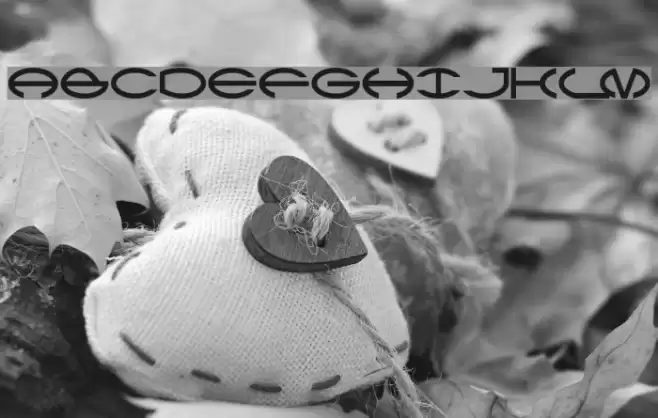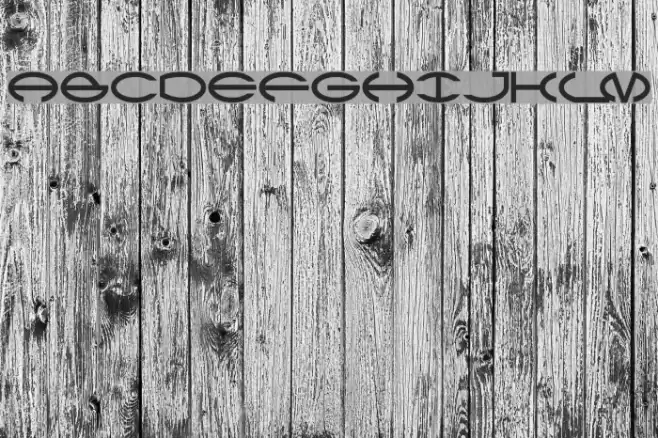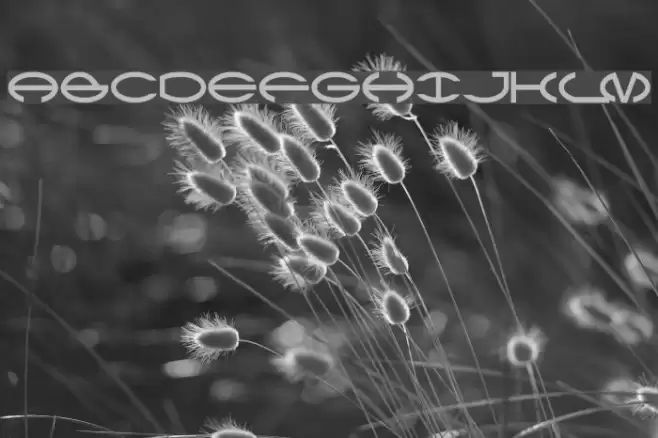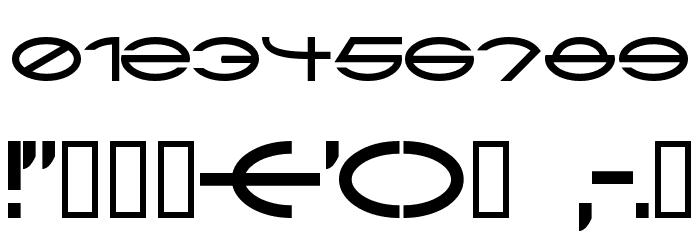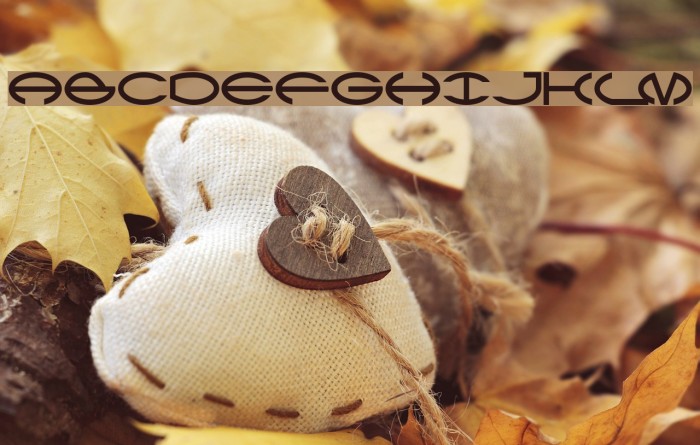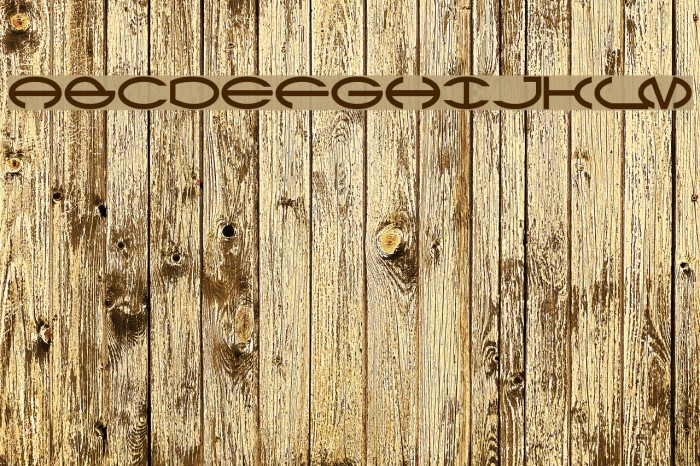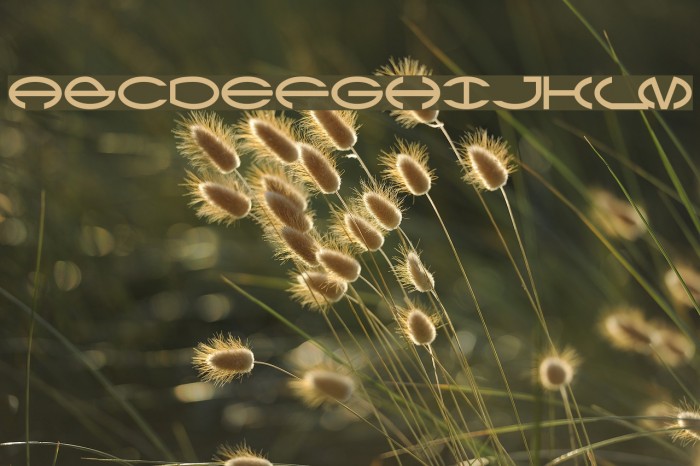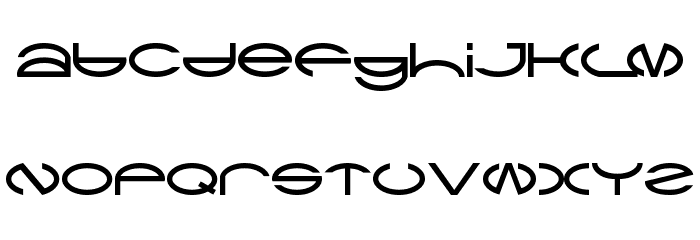
This font features a futuristic and geometric design, characterized by its unique and abstract letterforms. Each character is crafted with a combination of curves and straight lines, creating a sense of symmetry and balance. The font's style is reminiscent of digital or sci-fi themes, making it stand out with its bold and innovative appearance. The uppercase and lowercase letters maintain a consistent design, while the numbers and special characters complement the overall aesthetic. This font is ideal for projects that require a modern and cutting-edge look.
A futuristic, geometric font with abstract letterforms from Futuristic fonts.
- Proposed Projects: Ideal for sci-fi posters, tech branding, video game titles, and digital media.